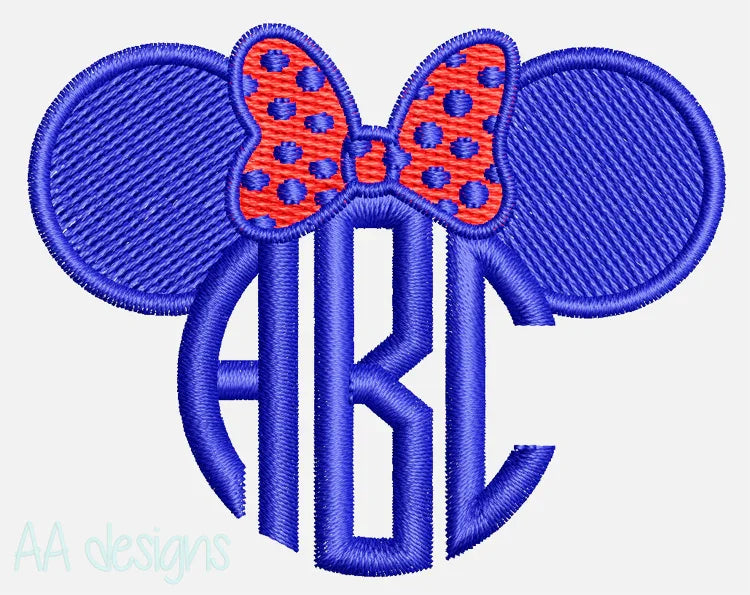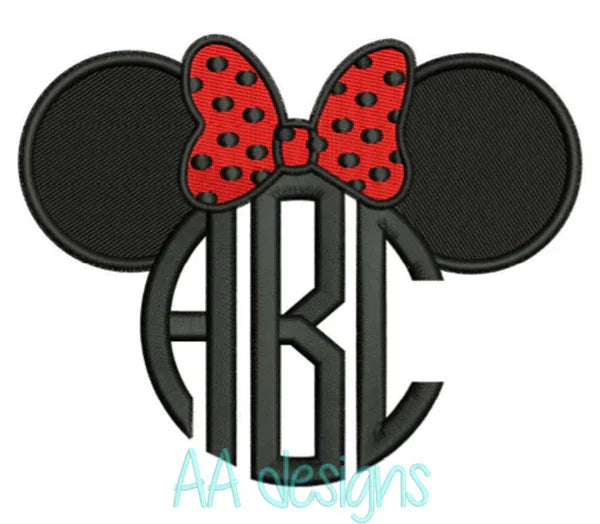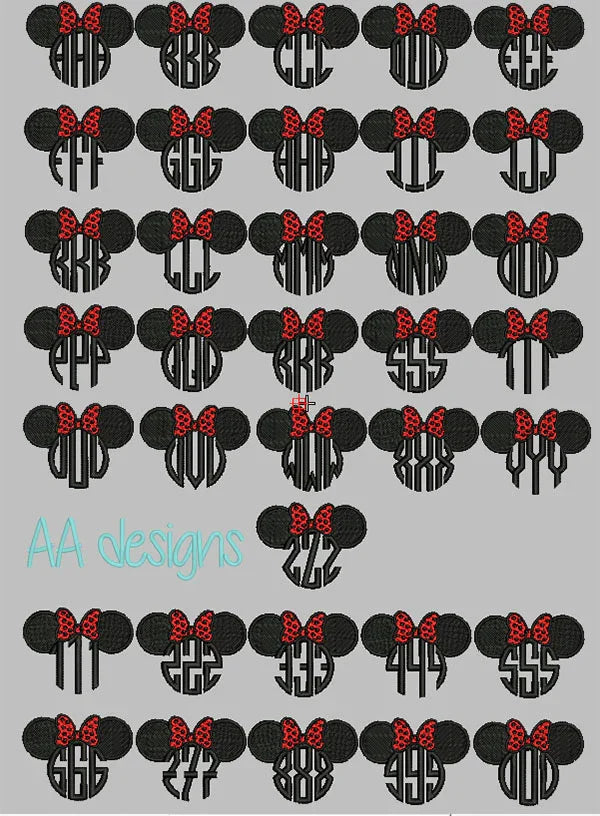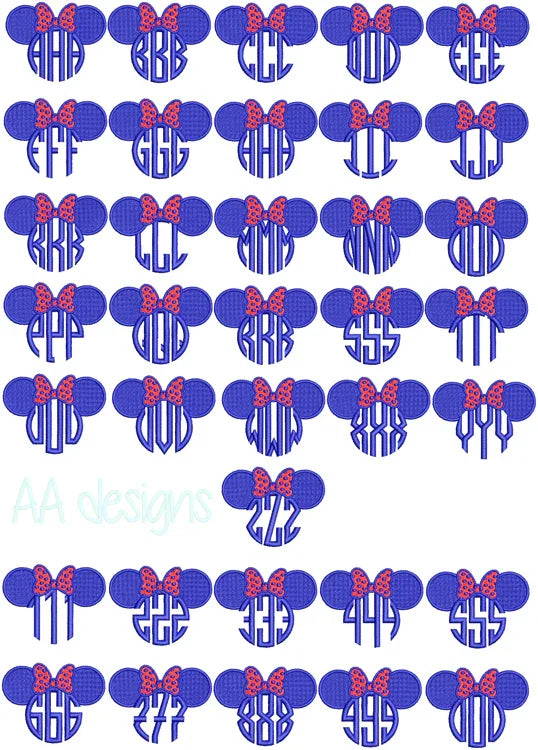
Mickey monogram embroidery digital font. Embroidery font in Mickey for baby cute. BX file
Mickey monogram embroidery digital font
This font comes with letters in 3 sizes, Center, Left and Right, 0-9